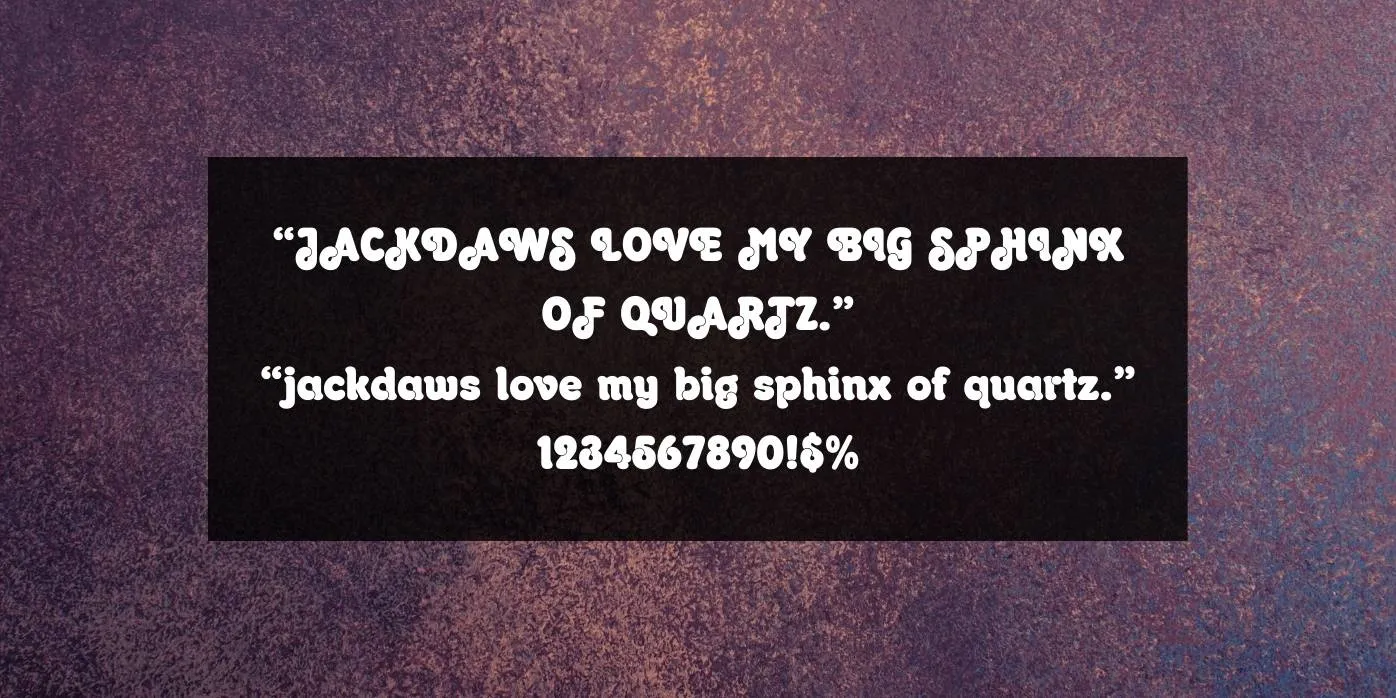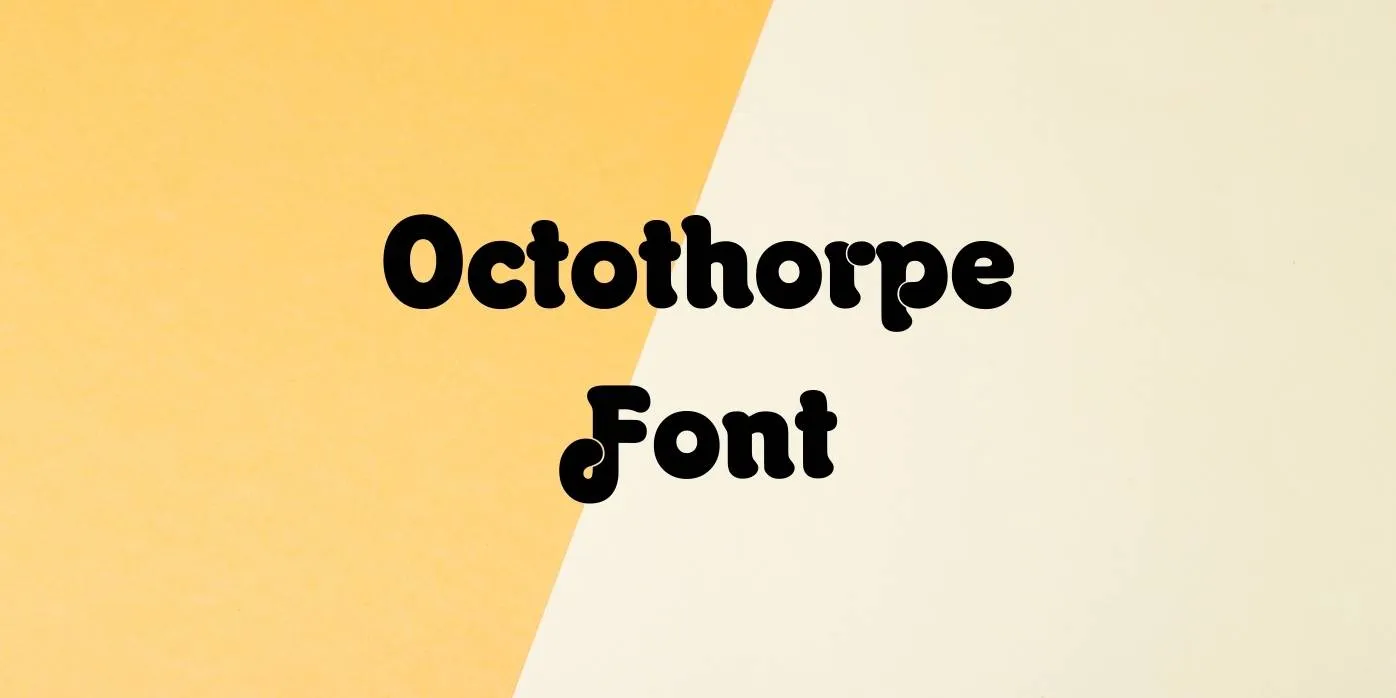
Octothorpe Font
Here, we are going to introduce a tremendous font named Octothorpe Font. It is a display typeface developed by Jorge Ivan Moreno Majul. This family has keen and clean features and neat textures. This typeface is well famed for CSS and HTML languages.
Octothorpe Font was designed with both web and print applications in mind. The font includes various character sets, including Latin, Cyrillic, and Greek character sets. You can also use harabara bold mais font which is closest to this font family. This font also supports multiple languages, making it a great choice for multilingual projects.
The copy-and-paste function is perfect for various designs. One of the key features of Octothorpe Font is its high readability. The font was specifically designed to be highly legible, even in small sizes. This makes this classy font an ideal choice for body text, as well as headlines and other display use.